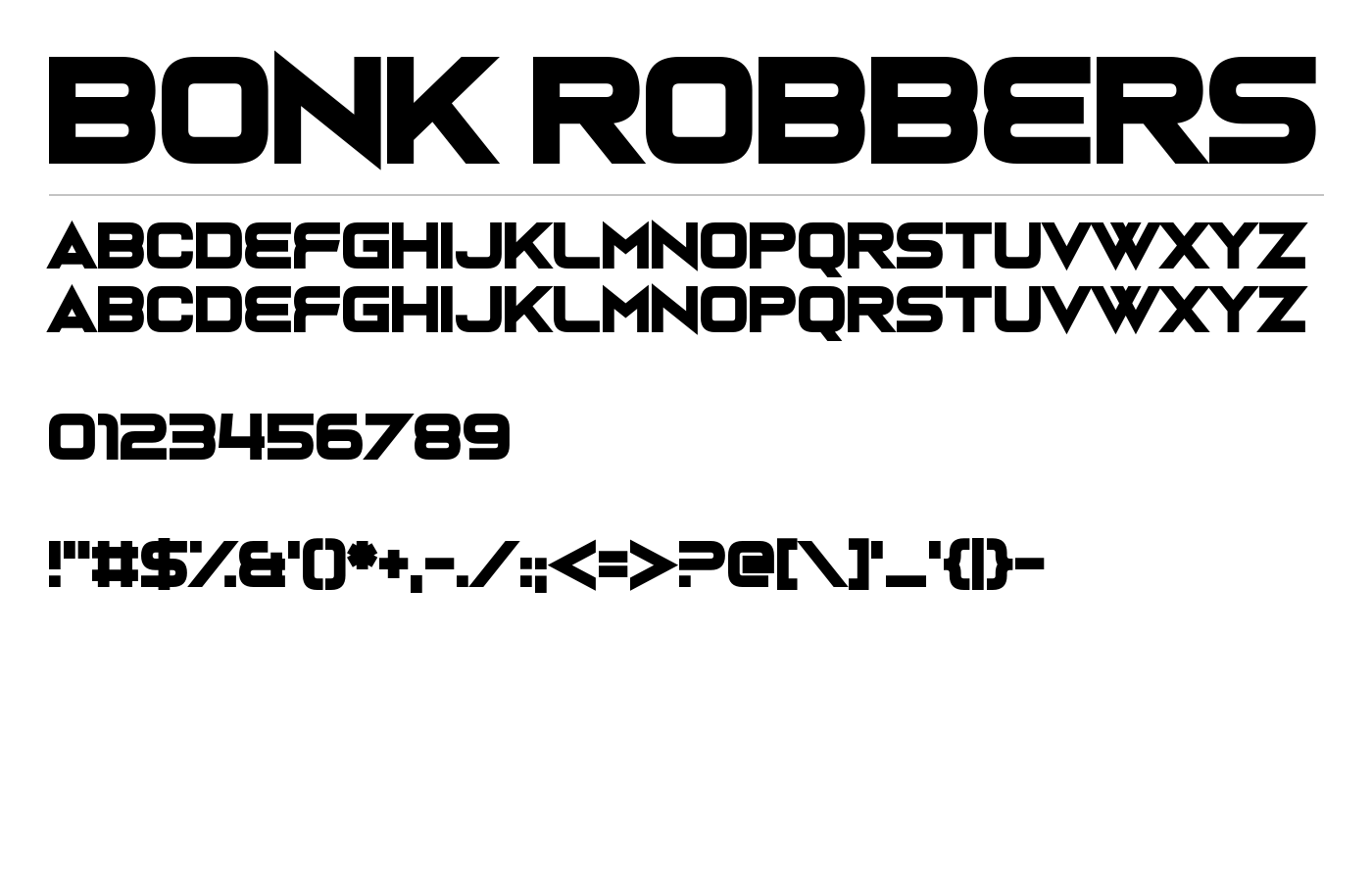
Bonk Robbers is a bold, geometric sans serif font with a strong, modern presence and slightly condensed letterforms that convey energy and impact. Its sharp angles and uniform stroke weight give it a futuristic and technical feel, making it ideal for headlines, logos, and branding that require a confident, cutting-edge look. This font works well in contexts where a striking, contemporary style is needed to grab attention and suggest innovation or strength.
Bonk Robbers Font
About Bonk Robbers Font
| Font family | Bonk Robbers Font |
| Designer | Allison James |